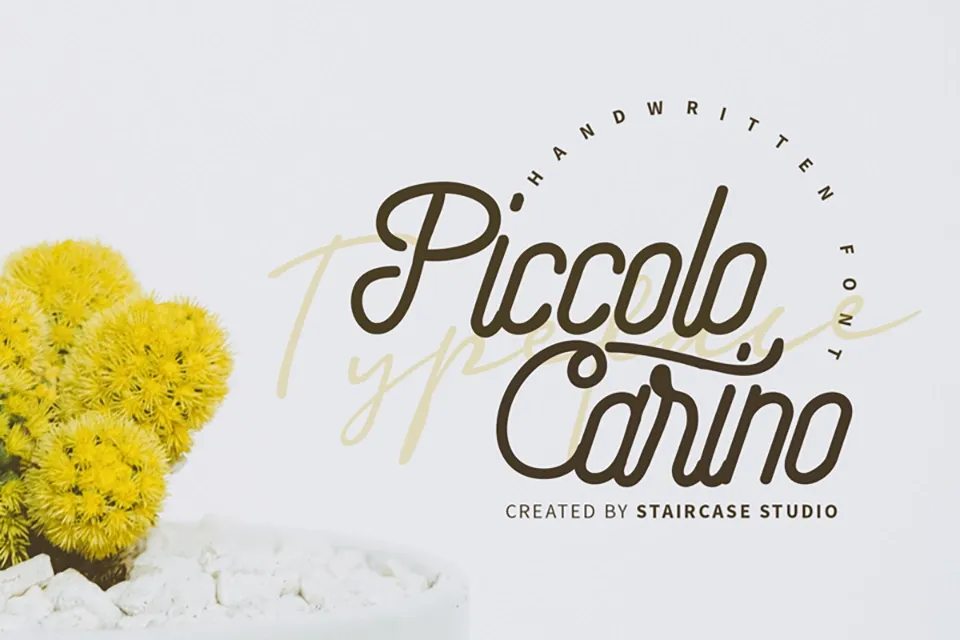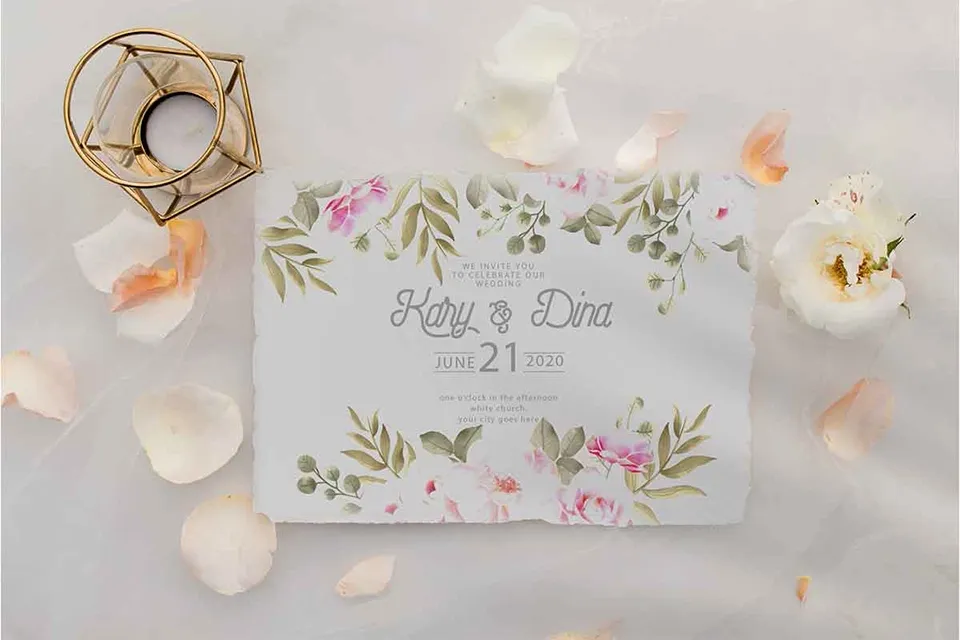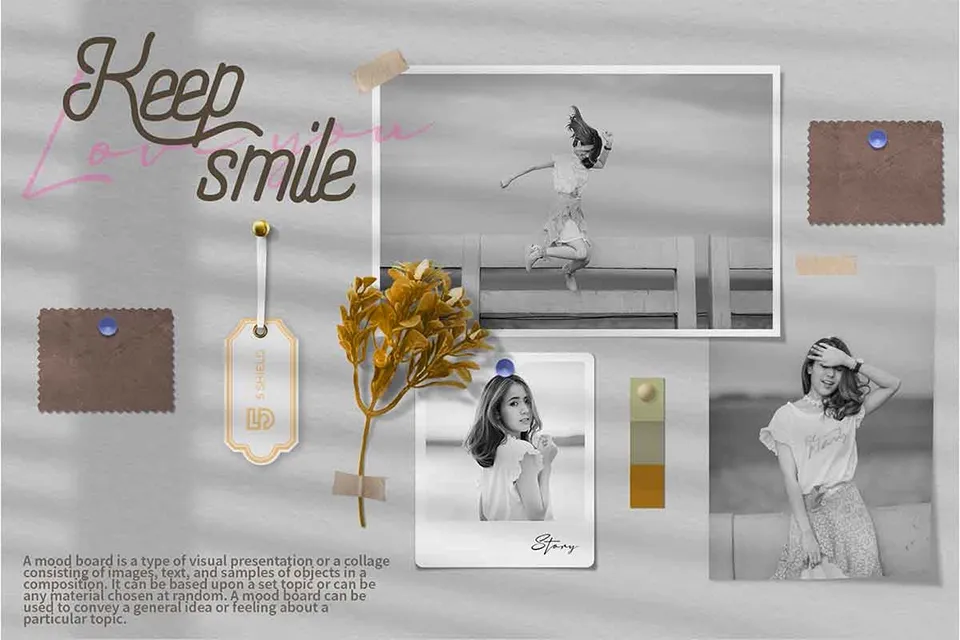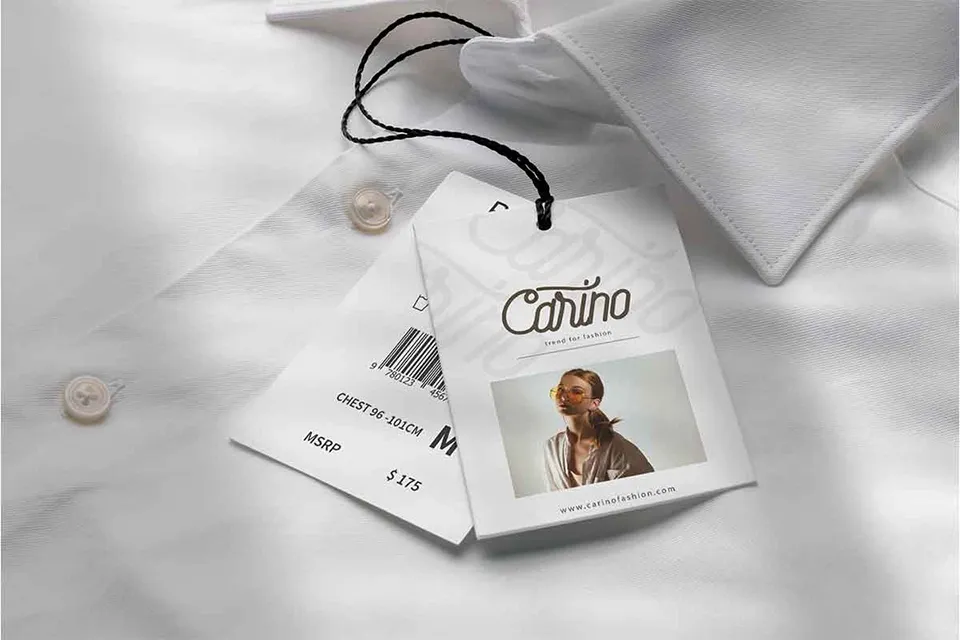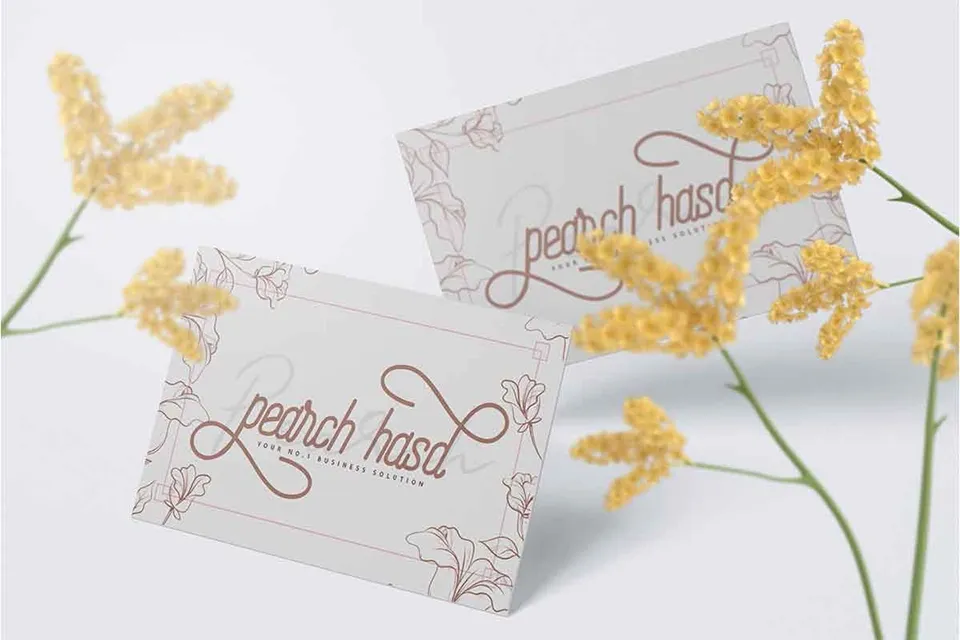
Piccolo Carino Font
Piccolo Carino Font is a stylish handwritten typeface created by Staircase Studio, featuring elegant monoline script strokes. Its natural, flowing style is ideal for branding, logo design, invitations, and creative projects that call for a personal touch. With multiple styles available, this font brings a modern yet charming appeal to any design.